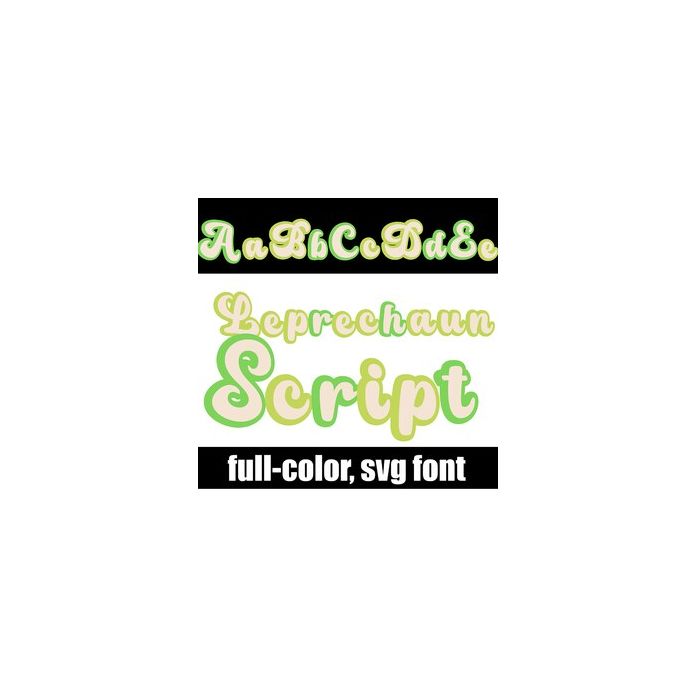
This full-color font features a pretty, retro script in a green color palette. There is an alt case w/ additional colors you can access through your system or Silhouette's glyph map.